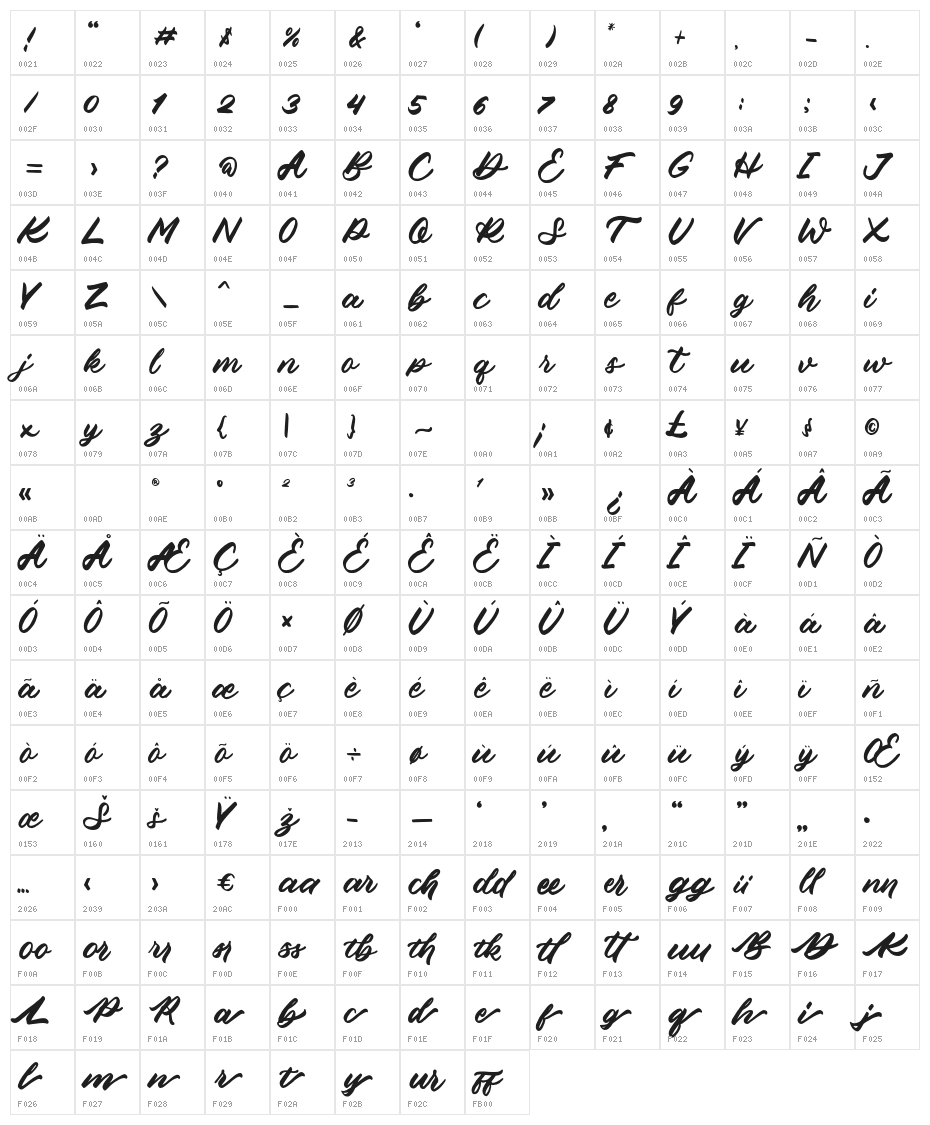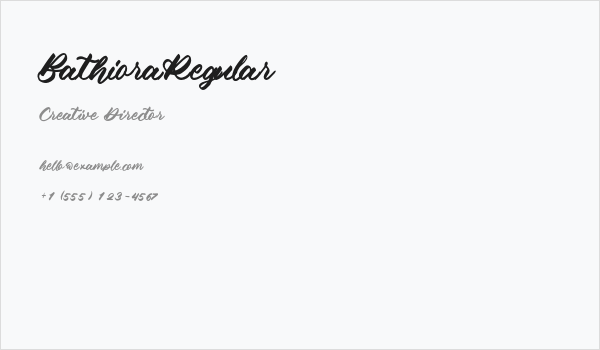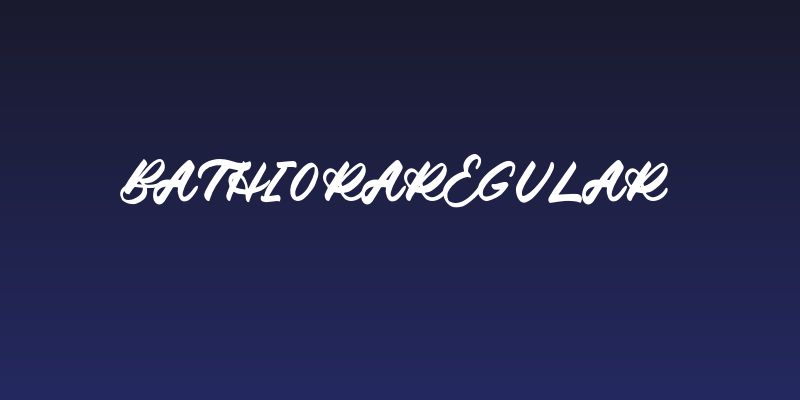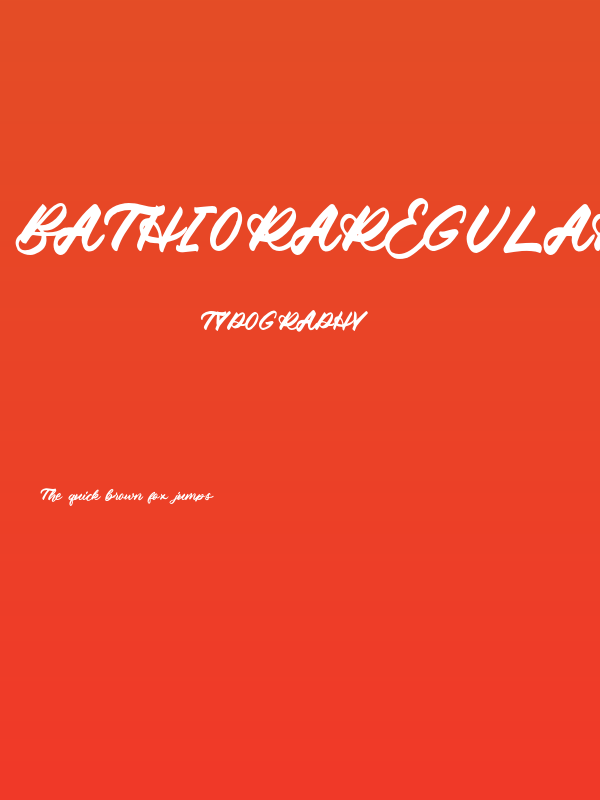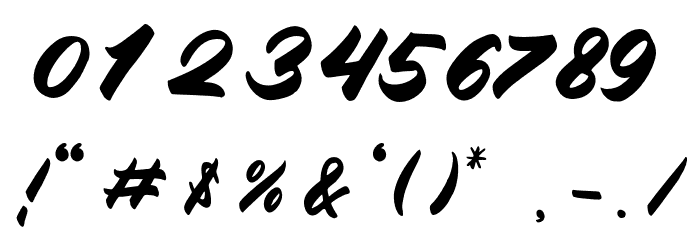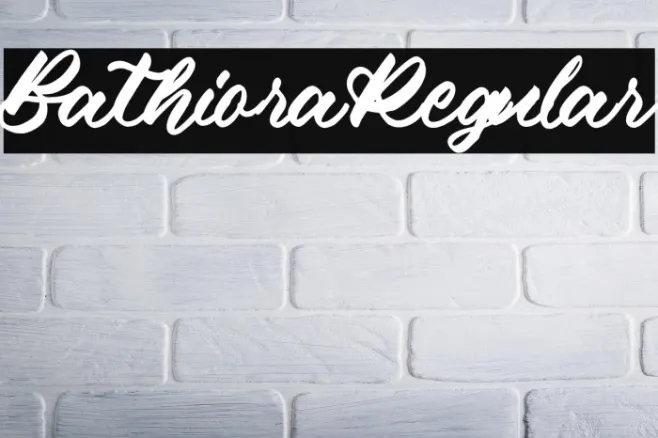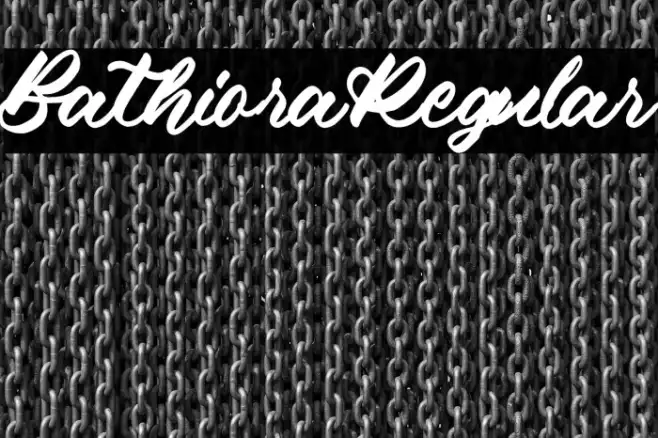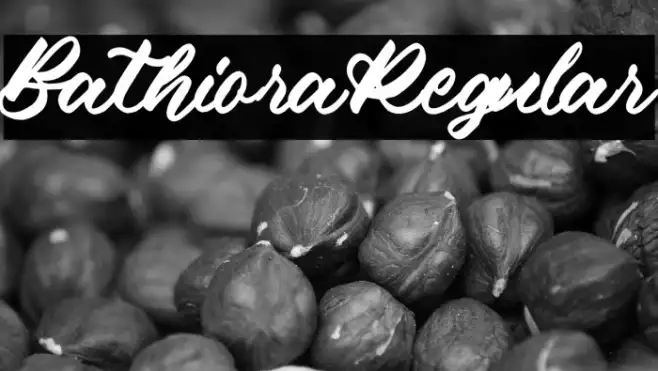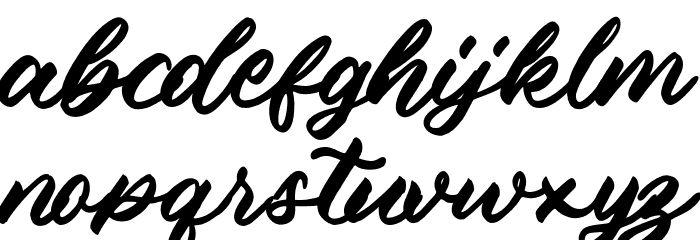
BathioraRegular Font
BathioraRegular Description
This font features a bold and expressive script style, characterized by its fluid and dynamic strokes. The letters are interconnected, creating a sense of continuity and flow. The uppercase letters are slightly more angular, while the lowercase letters maintain a smooth, cursive appearance. The numerals and special characters are designed to complement the overall aesthetic, with a consistent thickness and style. This font exudes a sense of elegance and creativity, making it suitable for a variety of design applications.
| Proposed Projects | Ideal for branding, invitations, greeting cards, and artistic projects that require a personal touch. |